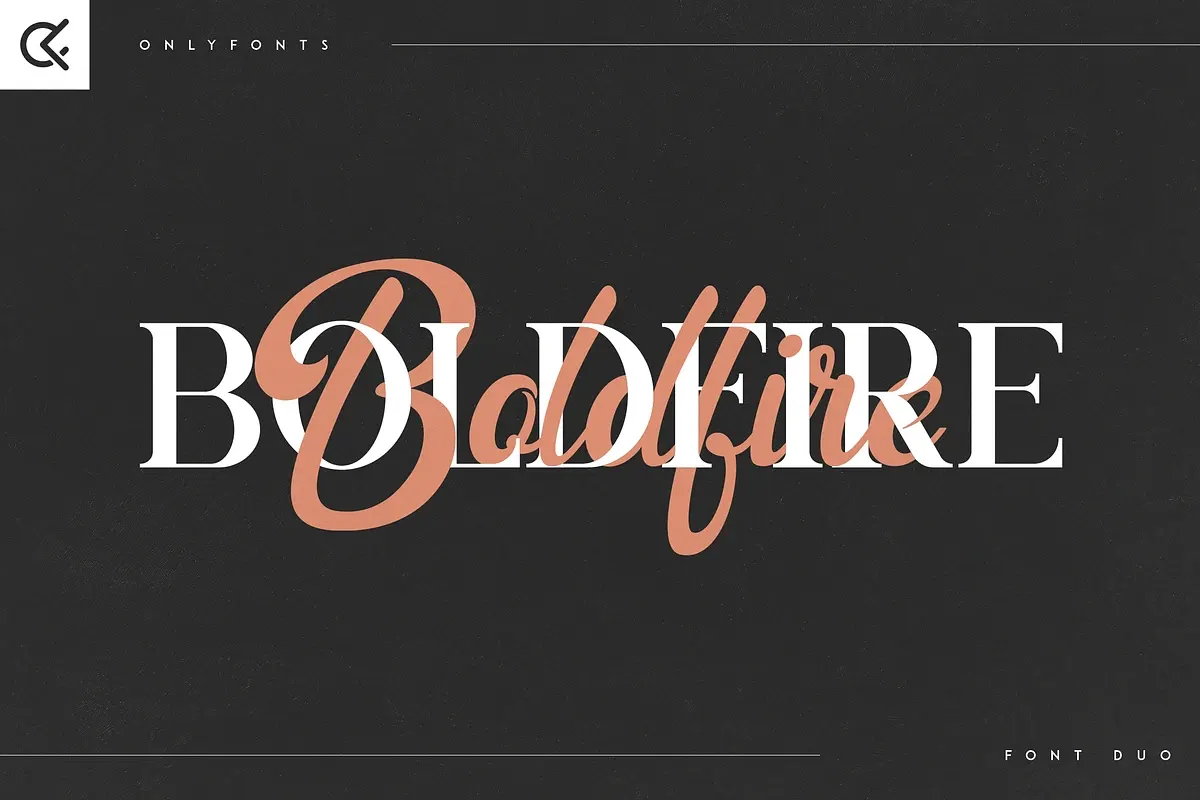
The Boldfire - Creative Font Duo Free Download is a dynamic and versatile font bundle that combines bold, modern display fonts with elegant scripts, making it perfect for a wide range of creative projects. Whether you’re designing logos, branding, social media graphics, invitations, or packaging, this font duo provides the perfect combination of strength and elegance.
The Boldfire display font features sharp, strong letterforms for headlines and large formats, while the accompanying script font adds a fluid, handwritten touch for more personal, stylish design elements. Together, they create a balanced, eye-catching typographic experience.
This duo includes uppercase and lowercase letters, numbers, punctuation, and multilingual support, offering versatility for a wide range of creative applications.